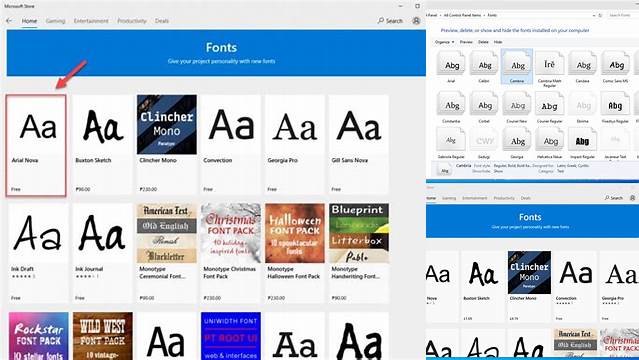
Hey guys! Ever felt like your Windows 10 is looking a little…blah? One of the easiest ways to spice things up is by playing around with fonts. Yup, that’s right! Fonts can totally transform the look and feel of your documents, presentations, and even your desktop. And the best part? You can download fonts for Windows 10 free! In this guide, we're going to walk you through everything you need to know about finding, installing, and managing fonts to make your Windows 10 experience uniquely yours.
1. Understanding Font Types for Windows 10
Before we dive into where to snag those free fonts, let's quickly chat about the different types of fonts you'll encounter. Knowing this stuff will help you make better choices and avoid potential headaches down the road. When we talk about download fonts for Windows 10 free, we need to know what can cause problems. There are mainly three types: TrueType fonts (.ttf), OpenType fonts (.otf), and PostScript fonts (.ps). TrueType fonts are super common and widely supported, making them a safe bet for most users. OpenType fonts are like the evolved version of TrueType, offering more advanced features like ligatures and alternate characters. PostScript fonts, while still around, are less common these days. For most of your needs, sticking with TrueType or OpenType will do the trick. Understanding these font formats is crucial when you download fonts for Windows 10 free, ensuring compatibility and optimal performance on your system. Each format has its strengths and weaknesses, so consider your specific design needs when making your selection. Ultimately, a well-chosen font can significantly enhance the visual appeal of your documents and projects, making it worth the effort to understand the nuances of font types. Also, make sure you know the details. If you don't know, you may experience problems later.
6. Finding the Best Font Combinations
Choosing the right font is important, but pairing fonts well can really elevate your design. Let's explore how to find the best font combinations. A good rule of thumb is to pair a serif font (like Times New Roman or Georgia) with a sans-serif font (like Arial or Helvetica). This creates contrast and visual interest. For example, you could use a serif font for your headings and a sans-serif font for your body text. Another approach is to use fonts from the same family but with different weights or styles. This provides consistency while still offering some variation. Websites like FontPair and Typewolf offer curated font combinations that you can use as inspiration. When selecting font combinations, consider the overall tone and style of your project. A formal project might require more traditional font pairings, while a creative project might benefit from bolder and more unconventional combinations. Experiment and see what works best for you. Finding the perfect font combinations can take time, but the effort is well worth it. The right pairing can make your text more readable and visually appealing, enhancing the overall impact of your design. Always test your font combinations on different devices and screen sizes to ensure they look good everywhere. Remember that when you download fonts for Windows 10 free, thinking about how they pair together is just as crucial as the individual fonts themselves.
7. Using Fonts for Different Purposes (e.g., Documents, Presentations, Graphic Design)
Fonts aren't one-size-fits-all; the best choice depends on the purpose. Let's look at using fonts effectively for different projects. For documents, readability is key. Stick to classic, clean fonts like Times New Roman, Arial, or Calibri. These fonts are easy on the eyes and won't distract from the content. For presentations, you have a bit more leeway. Use larger font sizes and bolder fonts to ensure your text is visible from a distance. Sans-serif fonts like Helvetica or Futura work well for headings, while serif fonts can be used for body text. In graphic design, the possibilities are endless. Choose fonts that reflect the style and mood of your design. Experiment with different font combinations and styles to create a unique look. Just remember to always prioritize readability and legibility, even in creative projects. No matter the purpose, always ensure your fonts are properly licensed, especially if you plan to use them commercially. When you download fonts for Windows 10 free, check the licensing terms carefully to avoid any legal issues. Using fonts strategically for different purposes can significantly enhance the effectiveness of your communication. Always consider your audience and the message you're trying to convey when making your font choices. Proper font use elevates documents, presentations, and graphic designs.
8. Creating Your Own Fonts
Feeling adventurous? Why not try creating your own fonts? It's a fun and creative way to express your unique style. There are several font creation tools available, both free and paid. FontForge is a popular open-source option that offers a wide range of features. Glyphs is a more advanced, paid tool that's favored by professional type designers. Creating a font involves drawing each letter, number, and symbol, and then adjusting the spacing and kerning to ensure everything looks balanced. It can be a time-consuming process, but the results can be incredibly rewarding. Before you start, research font design principles to understand the basics of typography. This will help you create fonts that are not only visually appealing but also readable and functional. Consider starting with a simple font and gradually adding complexity as you gain experience. If you download fonts for Windows 10 free for inspiration, remember that creating and distributing your own commercially requires careful consideration of copyright and licensing. Making your own fonts allows you to add a personal touch to your projects and stand out from the crowd. It's a challenging but fulfilling endeavor that can open up new creative possibilities. Unleash your inner artist!
9. Understanding Font Licensing
Font licensing can be a tricky subject, but it's important to understand the basics to avoid any legal issues. Most fonts come with a license that specifies how you can use them. Some fonts are free for personal and commercial use, while others may have restrictions on commercial use or modification. Always read the license agreement carefully before using a font in a project. If you're unsure about the terms of a license, contact the font designer or foundry for clarification. Using a font without a proper license can result in legal penalties, so it's always better to err on the side of caution. When you download fonts for Windows 10 free, pay close attention to the licensing information provided by the website or font designer. Many free fonts come with open-source licenses, which allow you to use them freely for any purpose. However, some free fonts may have restrictions on redistribution or modification. Understanding font licensing ensures that you're using fonts legally and ethically. It also protects the rights of font designers and foundries. Always respect the terms of the license and give credit where it's due. Remember that ignorance of the law is no excuse, so do your homework and stay informed. Font licensing matters!
10. Using Online Font Editors
Online font editors provide a convenient way to customize fonts without installing any software. These tools allow you to modify existing fonts, create new fonts, and experiment with different styles and effects. FontStruct is a popular online font editor that uses a modular system to create fonts. BirdFont is another option that offers a more traditional font design interface. Using an online font editor is a great way to learn about font design and typography. You can experiment with different shapes, sizes, and styles to create unique fonts that reflect your personal taste. Many online font editors offer collaborative features, allowing you to work with others on font design projects. Before you download fonts for Windows 10 free created with online tools, carefully check the licensing terms to ensure you can use them for your intended purpose. Online font editors are a valuable resource for both beginners and experienced font designers. They offer a flexible and accessible way to create and customize fonts from anywhere with an internet connection. Unleash your creativity!
11. Font File Formats: TTF, OTF, and More
We briefly touched on font file formats earlier, but let's dive a little deeper. Understanding these formats is crucial for compatibility and optimal performance when you download fonts for Windows 10 free. TTF (TrueType Font) is one of the most common font formats. It's widely supported and works well on most operating systems. OTF (OpenType Font) is a more advanced format that offers additional features, such as ligatures and alternate characters. OTF fonts are generally larger in file size than TTF fonts. There are also other font formats, such as WOFF (Web Open Font Format) and EOT (Embedded Open Type), which are primarily used for web design. When choosing a font format, consider the intended use and compatibility requirements. TTF is a safe bet for most applications, while OTF offers more advanced features for design projects. Always ensure that your chosen font format is supported by the software or platform you're using. Understanding font file formats helps you make informed decisions and avoid compatibility issues. Choose the right format for your needs!
12. Integrating Fonts with Adobe Creative Suite
If you're a designer, you're probably using Adobe Creative Suite. Integrating your download fonts for Windows 10 free with Adobe apps like Photoshop, Illustrator, and InDesign is super easy. Once you install a font on Windows 10, it should automatically appear in your Adobe applications. If it doesn't, try restarting the application or your computer. You can also use the Adobe Fonts service, which provides access to thousands of fonts that are seamlessly integrated with Adobe Creative Suite. Adobe Fonts allows you to activate and deactivate fonts as needed, making it easy to manage your font collection. When working with fonts in Adobe applications, pay attention to typography settings like kerning, tracking, and leading to ensure your text looks its best. Integrating fonts with Adobe Creative Suite streamlines your design workflow and allows you to create professional-quality designs. Adobe Fonts is a valuable resource for designers, offering a vast library of high-quality fonts. Level up your design game!
13. Optimizing Fonts for Web Use
Using the right fonts on your website can greatly improve its visual appeal and readability. However, it's important to optimize fonts for web use to ensure fast loading times and a smooth user experience. When you download fonts for Windows 10 free for web use, consider using WOFF or WOFF2 formats, which are specifically designed for the web. These formats offer better compression and performance than TTF or OTF. You can also use CSS to specify font-display properties, which control how fonts are loaded and displayed on your website. Using a content delivery network (CDN) to host your fonts can also improve loading times. When choosing fonts for your website, prioritize readability and legibility. Stick to clean, simple fonts that are easy to read on different devices and screen sizes. Optimizing fonts for web use ensures that your website looks great and performs well. Pay attention to font formats, loading strategies, and readability to create a positive user experience. Happy coding!
14. Fonts and Accessibility: Ensuring Readability for All
Accessibility is a crucial consideration when choosing fonts for any project, whether it's a document, presentation, or website. When you download fonts for Windows 10 free, ensure they are readable for everyone, including people with disabilities. Choose fonts with clear, distinct letterforms and sufficient spacing between characters. Avoid using overly decorative or stylized fonts that can be difficult to read. Use appropriate font sizes and contrast ratios to ensure text is visible and legible. Provide alternative text descriptions for images containing text to make them accessible to screen readers. Test your fonts with different screen sizes and devices to ensure they remain readable. Adhering to accessibility guidelines ensures that your content is accessible to everyone, regardless of their abilities. Choose fonts wisely to promote inclusivity and readability. Accessibility matters!
15. The History of Fonts: A Brief Overview
Fonts have a rich and fascinating history that spans centuries. From the early days of printing to the digital age, fonts have played a crucial role in communication and design. The first fonts were created by hand using movable type. These early fonts were based on calligraphy and handwriting styles. As printing technology evolved, so did fonts. New font styles were developed to meet the changing needs of designers and publishers. In the digital age, fonts have become more accessible and versatile than ever before. When you download fonts for Windows 10 free, you're benefiting from centuries of innovation and craftsmanship. Learning about the history of fonts can deepen your appreciation for the art of typography. Fonts are more than just letters; they're a reflection of culture and history. Explore the world of fonts!
16. Using Font Management Software
If you're serious about fonts, consider using font management software. These tools can help you organize, activate, and deactivate fonts, making it easier to manage your font collection. FontBase and NexusFont are popular free font management programs. Paid options include FontExplorer X Pro and Suitcase Fusion. Font management software allows you to preview fonts, create font sets, and resolve font conflicts. These tools can also help you find and remove duplicate fonts, freeing up disk space. When you download fonts for Windows 10 free, font management software can help you keep your font collection organized and efficient. If you're a designer or typographer, font management software is an essential tool. Level up your font game!
17. Understanding Kerning, Tracking, and Leading
Kerning, tracking, and leading are essential typography terms that you should understand to create visually appealing and readable text. Kerning refers to the spacing between individual letters. Adjusting kerning can improve the balance and harmony of your text. Tracking refers to the uniform spacing between all letters in a word or line. Increasing tracking can make text more open and airy, while decreasing tracking can make text more compact. Leading refers to the vertical spacing between lines of text. Adjusting leading can improve readability and visual appeal. When you download fonts for Windows 10 free, pay attention to kerning, tracking, and leading to optimize your typography. Mastering these concepts can elevate your design and communication skills. Typography is an art!
18. The Psychology of Fonts: How Fonts Affect Perception
Did you know that fonts can affect how people perceive your message? Different fonts evoke different emotions and associations. Serif fonts, like Times New Roman, are often associated with tradition, authority, and formality. Sans-serif fonts, like Arial, are often associated with modernity, simplicity, and clarity. Script fonts can evoke feelings of elegance, creativity, and romance. When you download fonts for Windows 10 free, consider the psychological impact of your font choices. Choose fonts that align with the message you're trying to convey and the audience you're trying to reach. The psychology of fonts is a fascinating field that can help you communicate more effectively. Fonts matter!
19. Finding Fonts Similar to Popular Typefaces
Sometimes you need a font that's similar to a popular typeface but without the hefty price tag. There are several websites and tools that can help you find fonts that are visually similar to popular typefaces. WhatFontIs.com and Identifont are great resources for identifying fonts. FontPair and Typewolf can help you find font combinations that work well together. When you download fonts for Windows 10 free, finding similar fonts can save you money and expand your font collection. Just be sure to check the licensing terms to ensure you can use the fonts for your intended purpose. Font hunting can be fun!
20. Using Special Characters and Glyphs
Many fonts include special characters and glyphs that can add flair and personality to your text. These characters can include ligatures, swashes, symbols, and ornaments. To access special characters and glyphs in Windows 10, use the Character Map tool. Simply search for